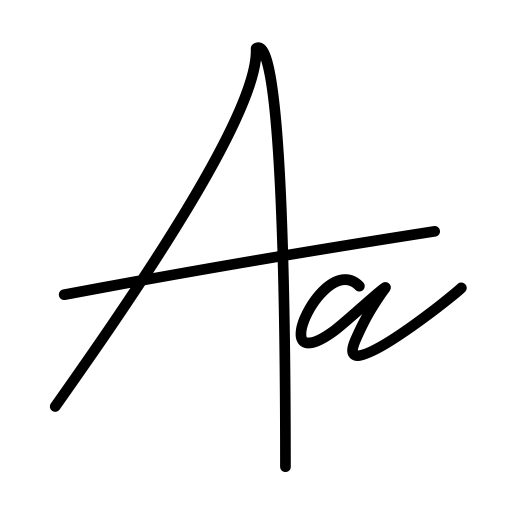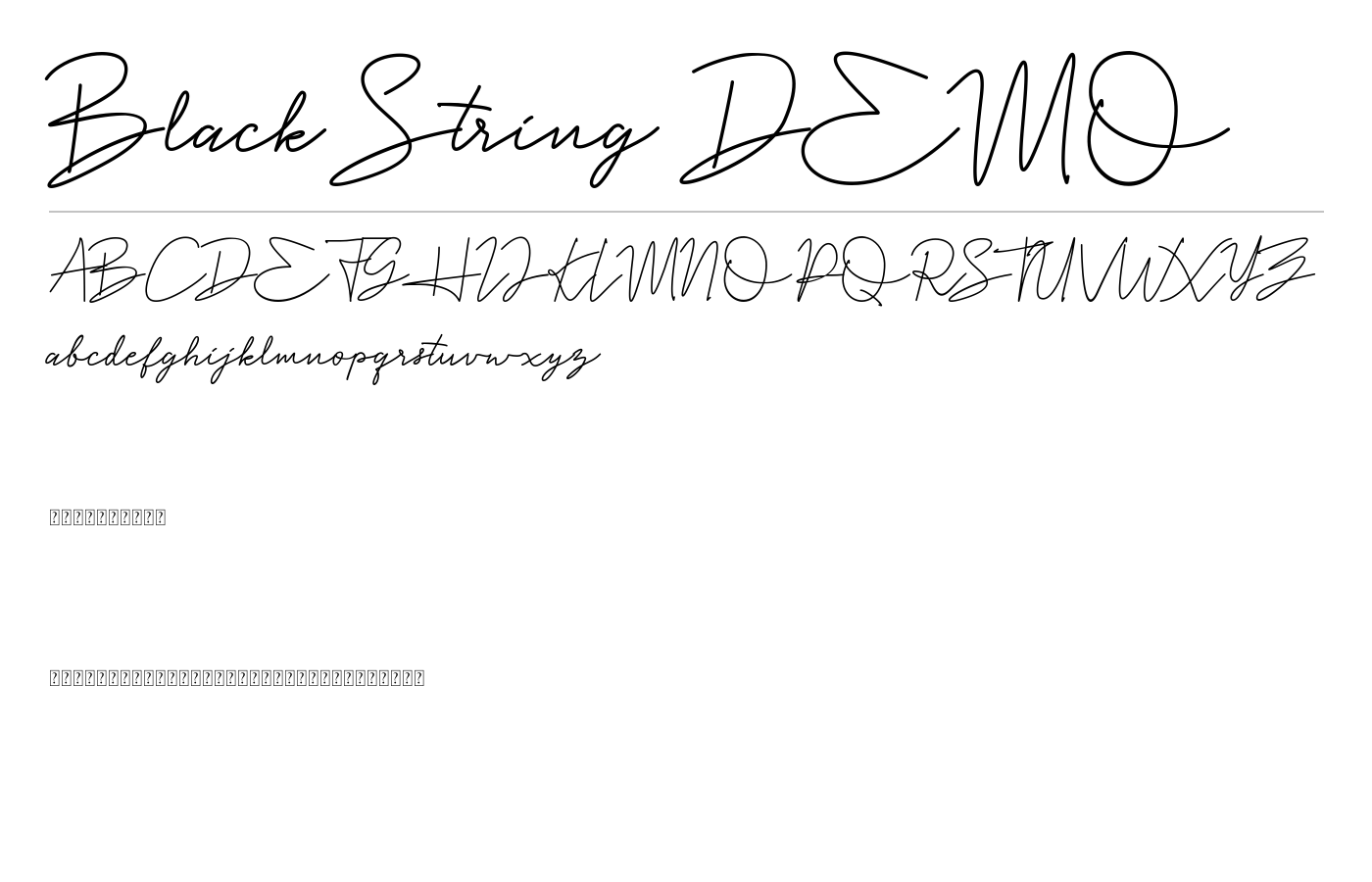
Black String DEMO is a delicate, elegant script font with a hand-drawn, whimsical feel. Its thin, flowing strokes and lively letterforms create a charming, personal touch, making it ideal for creative projects like invitations, branding, and stylish headlines where a casual yet sophisticated look is desired. This font works best at larger sizes, drawing attention with its airy and graceful style.
Black String DEMO Font
About Black String DEMO Font
| Font family | Black String DEMO Font |
| Designer | Raditya Putra Pratama - Raditya Type |